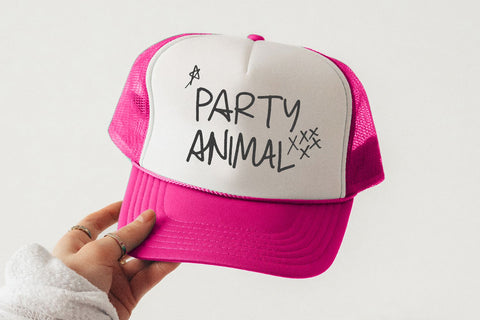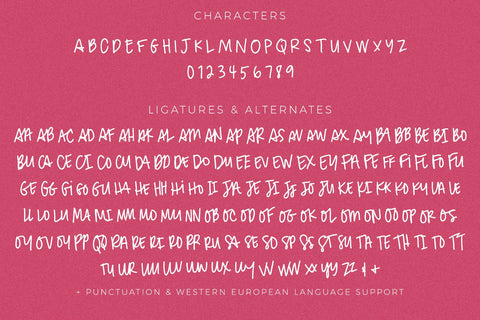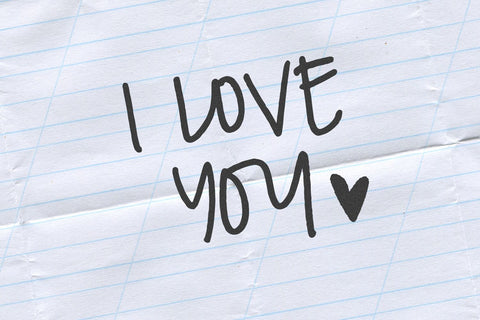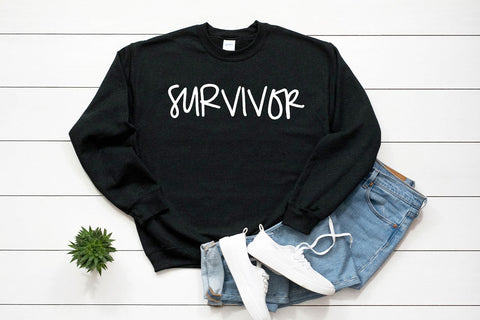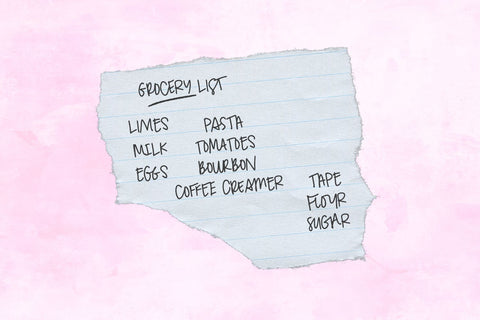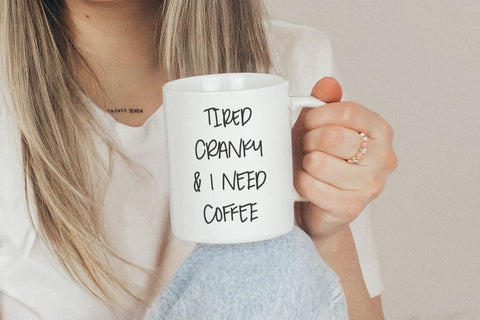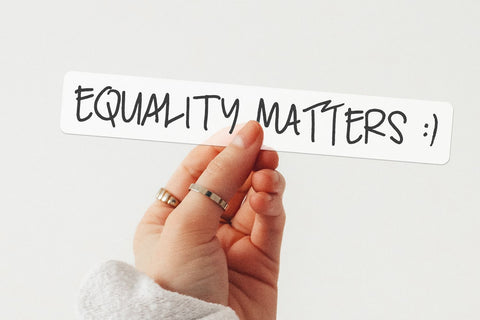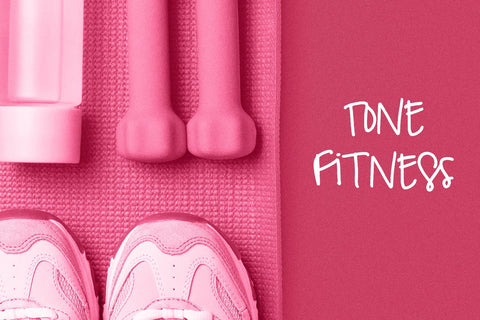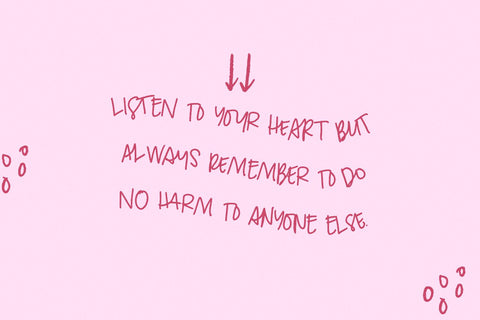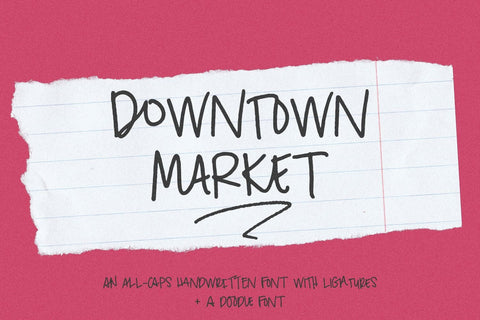
Downtown Market Handwriting Font
Downtown Market Sans is an all caps font with a lot of ligatures, which also includes a doodle font to have even more fun! Downtown Market is handwritten and looks like something you might find in a greeting card or on a grocery list.
Downtown Market Sans includes:
- full upper + lowercase characters
- numbers + punctuation
- 135 ligatures - aa, ab, ac, ad, af, ah, ak, al, am, an, ap, ar, as, av, aw, ax, ay, ba, bb, be, bi, bo, bu, ca, ce, ci, co, cu, da, dd, de, do, du, ee, ev, ew, ex, ey, fa, fe, ff, fi, fl, fo, fu, ge, gg, gi, go, gu, ha, he, hh, hi, ho, ii, ja, je, ji, jj, jo, ju, ke, ki, kk, ko, ky, la, le, ll, lo, lu, ma, mi, mm, mo, mu, nn, ob, oc, od, of, og, ok, ol, om, on, oo, op, or, os, ou, ov, oy, pp, qq, ra, re, ri, ro, rr, ru, sa, se, so, sp, ss, st, su, ta, te, th, ti, to, tt, tu, ur, uu, uv, uw, ux, uy, vv, ww, xx, yy, zz
- 2 alternate ampersands
Downtown Market Doodles includes:
- a variety of doodles programmed into A-Z, a-z, and 0-9, which can be accessed by typing, or by using FontBook, Character Map, or an alternate character viewer